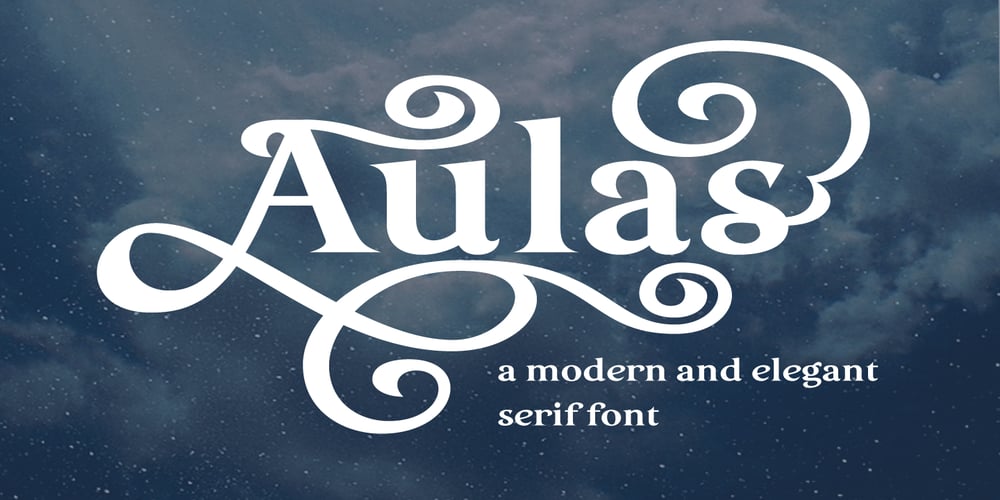
Aulas
Aulas font
Aulas Font Family was designed by Carine de Wandeleer and published by Eurotypo. Aulas contains 1 styles and family package options. Aulas’s design is inspired by an ancient Roman lettering. This font is characterised by the strength and weight of its glyphs, in addition to its predominant height of “x”, as well as the ascending and descending, with particularly short strokes. Aulas includes more than 200 alternative glyphs (swashes, stylistics sets, stylistics alternates), more than 70 ligatures, and a set of more than 30 ornaments, very easy to combine with the rest of the letters.This font offers good readability for use in editorial design, magazines, newsletters, and print. The strong personality of its glyphs is well suited to headlines.